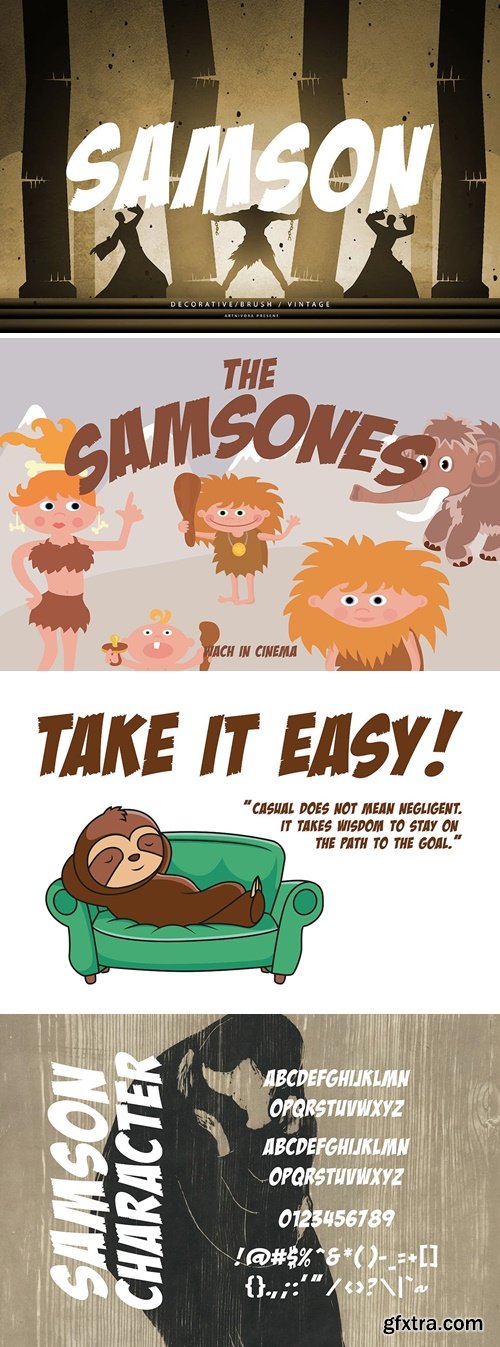
Introducing Samson, a simple and decorative font. So perfect for you who needs a typeface for logo designs, magazine, social media, brochure, and many more.